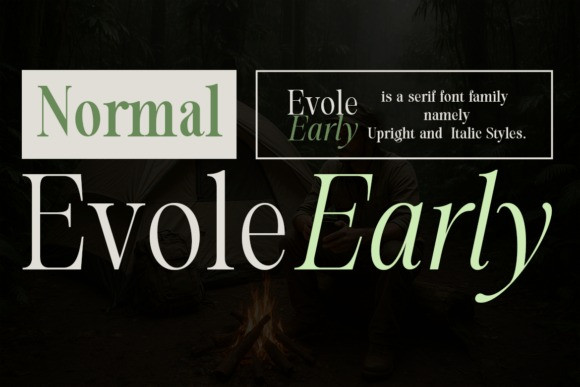
Evolve Early Normal Font
Evolve Early Normal Font is a refined serif typeface family designed for timeless editorial elegance and modern brand expression. With 24 styles—from Thin to Extra Black, each paired with a carefully crafted italic—this family provides the perfect balance of tradition, clarity, and contemporary sophistication.
Evole Early font, presented here in its Normal width, is a spectacular display serif that flawlessly blends historical gravitas with sharp, contemporary flair, creating an aesthetic of timeless power.
As a high-contrast Didone serif, the Evole Early typeface is characterized by its thin, precise serifs and vertical stress, lending a sophisticated, imposing presence to large text. The inclusion of both upright and distinctively slanted italic styles provides exceptional creative range, suitable for everything from editorial layouts to luxury brand identities.
Utilize this powerful Evole Early font family to create bold statements in advertising, impactful titles for magazines, or sophisticated website headers that demand respect and attention. This Normal style offers the perfect balance of readability and striking elegance.
Built on classic serif proportions with smooth curves and graceful contrast, Evolve Early Normal delivers exceptional readability for long-form text, while its heavier weights bring dramatic presence to headlines and identity systems. Whether used for books, magazines, luxury branding, or digital publishing, this family adapts effortlessly to any design environment.